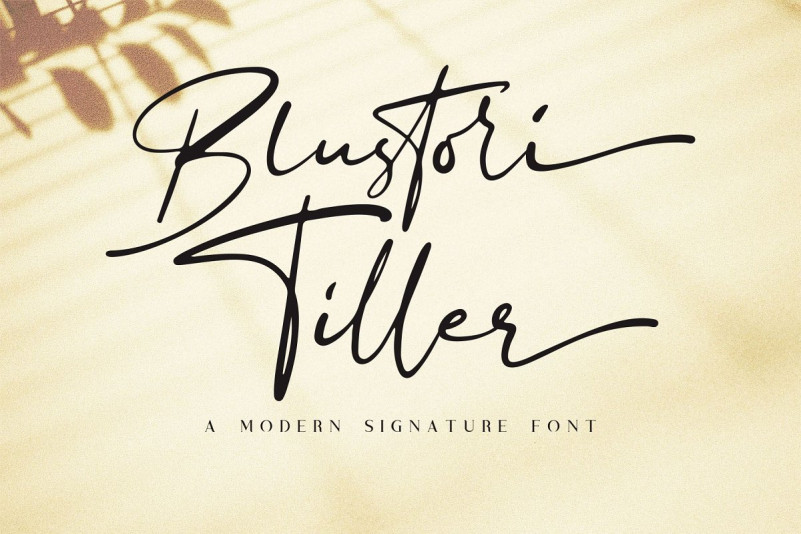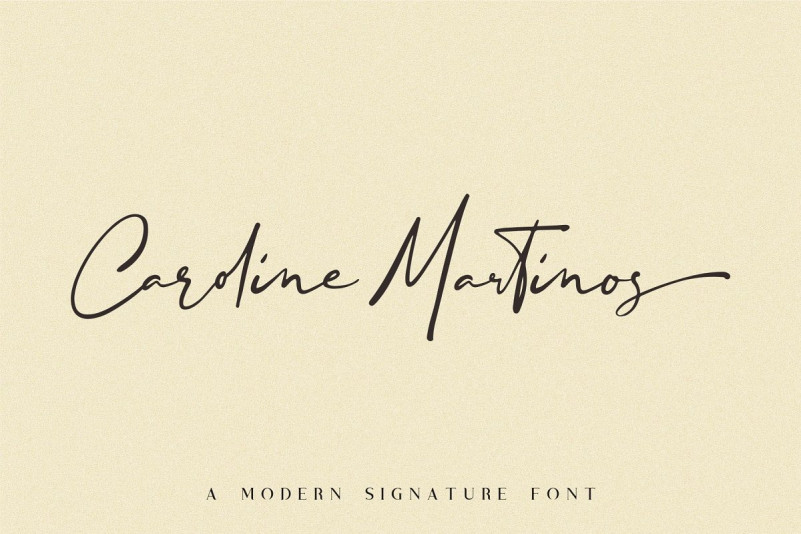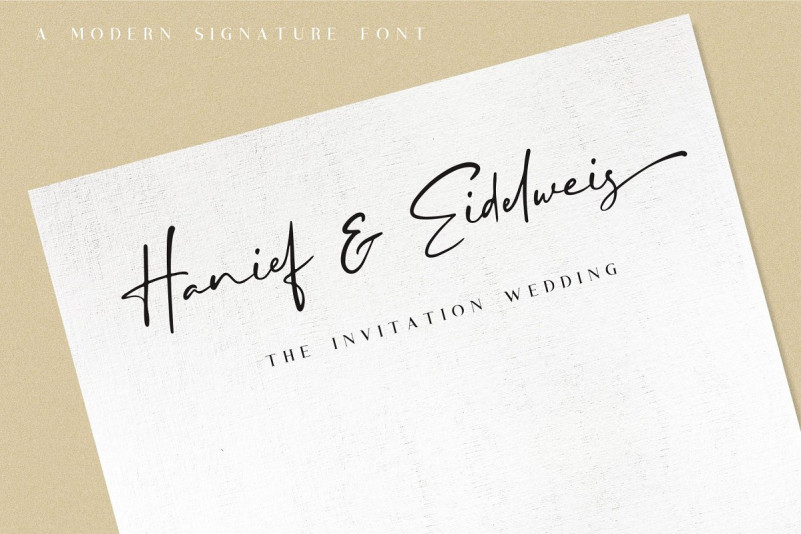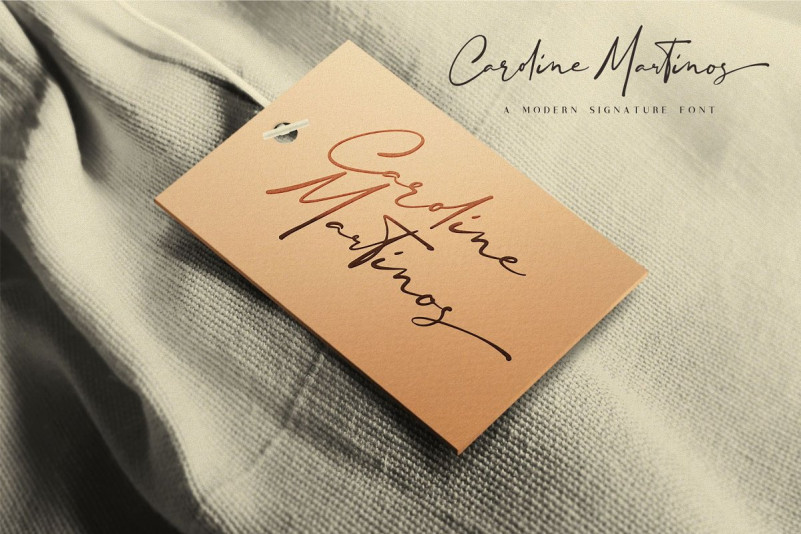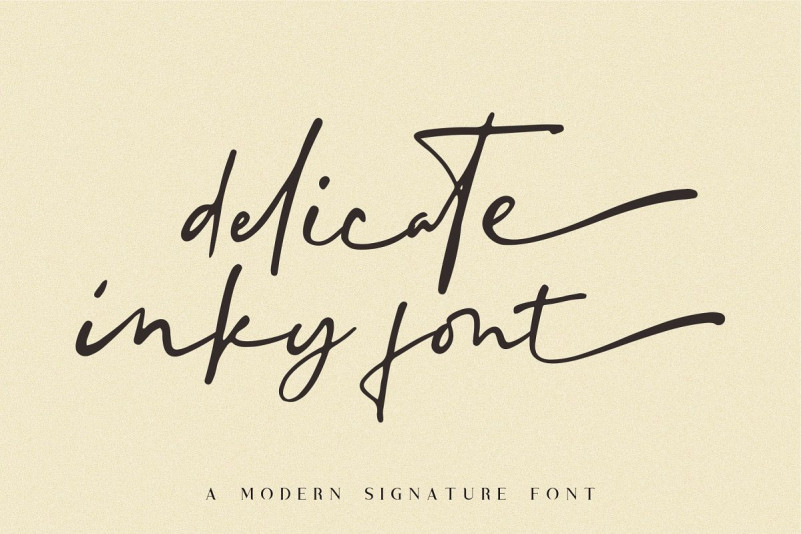
Blustori Tiller Signature Font
Befonts introduces to you a new modern signature font, A luxury, modern handwritten font with a personal charm. Blustori Tiller Font is a handwritten signature script font, classy handwritten font that designed for minimalist design projects. It’s a modern feminine font, every single letter has been carefully crafted to make your text look beautiful. With a modern script style this font will be perfect for many different projects ex: photography, watermark, quotes, blog header, poster, wedding, branding, logo, fashion, apparel, letter, invitation, stationery, etc.